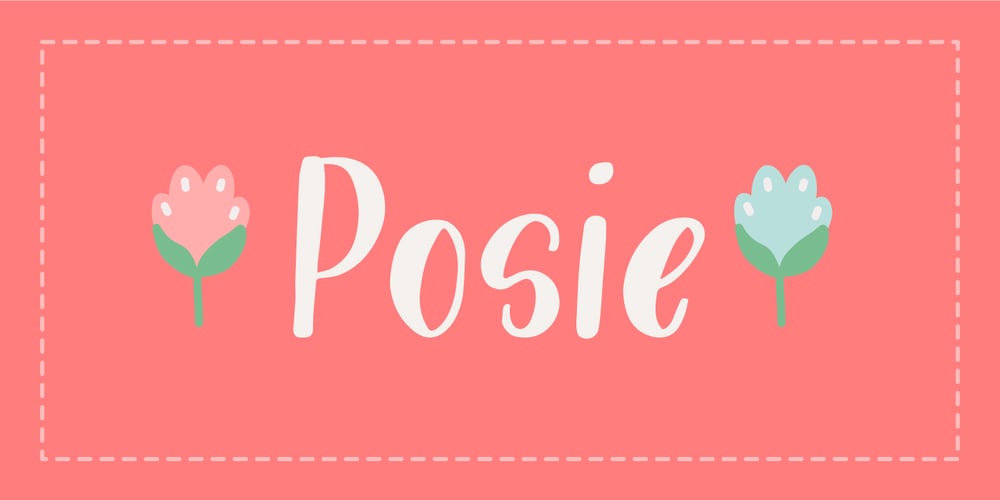
Posie Font Family was designed by Dathan Boardman and published by Great Lakes Lettering. Posie contains 1 styles and family package options. Posie is a hand made font created in Procreate by MJ herself. It’s a fun and whimsical font that would be perfect for greeting cards, toys, picture books or anything that requires a naive sensibility